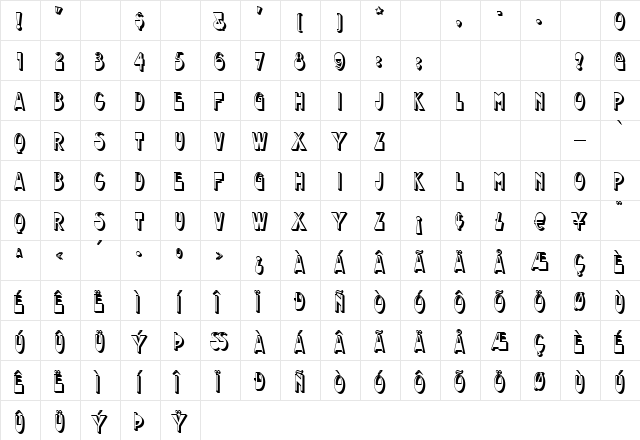
ChocolateDropsNF Regular
Design Context for ChocolateDropsNF Typeface
ChocolateDropsNF is a composed and adaptable typeface that performs quietly and consistently across a wide range of design contexts.